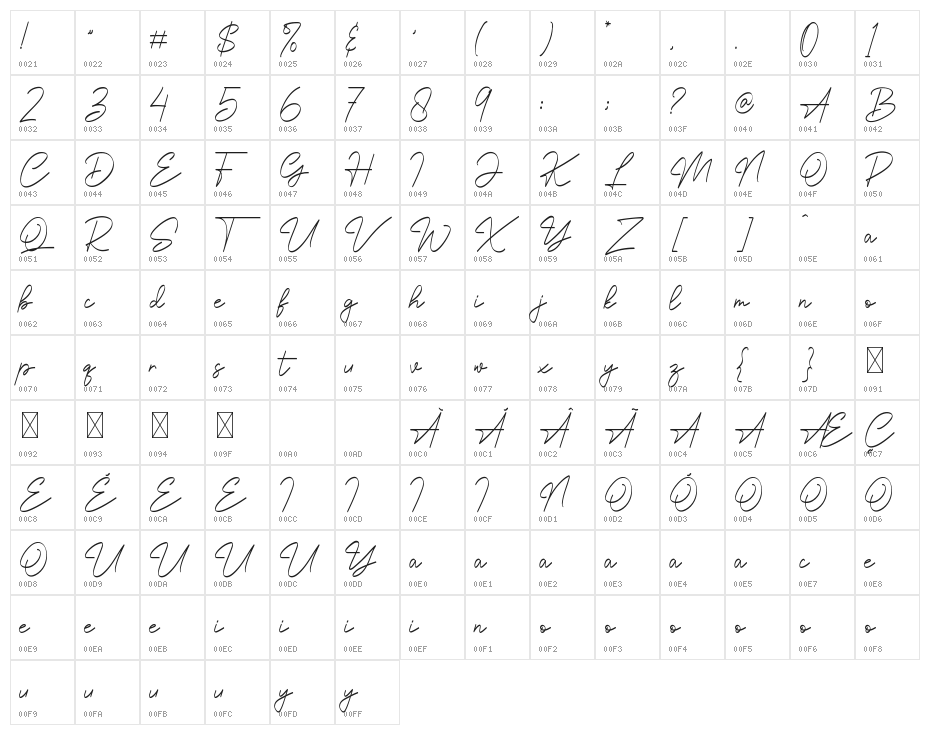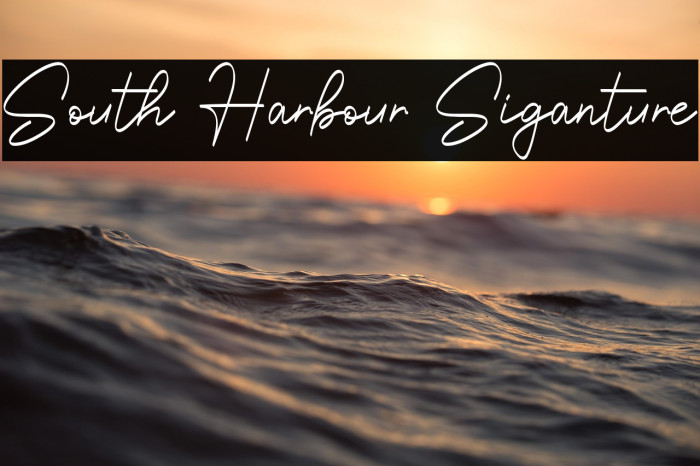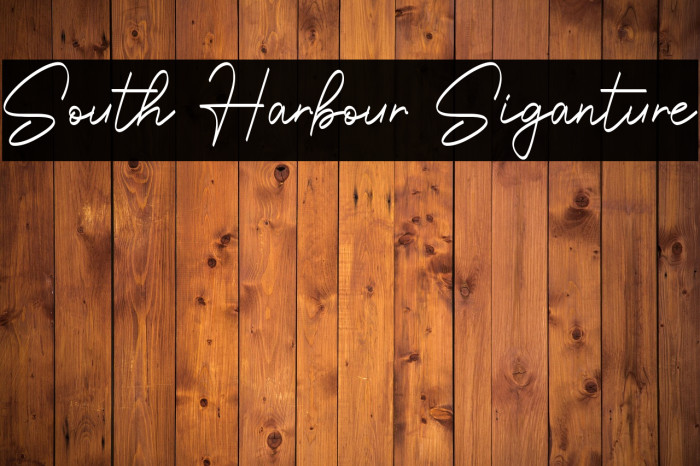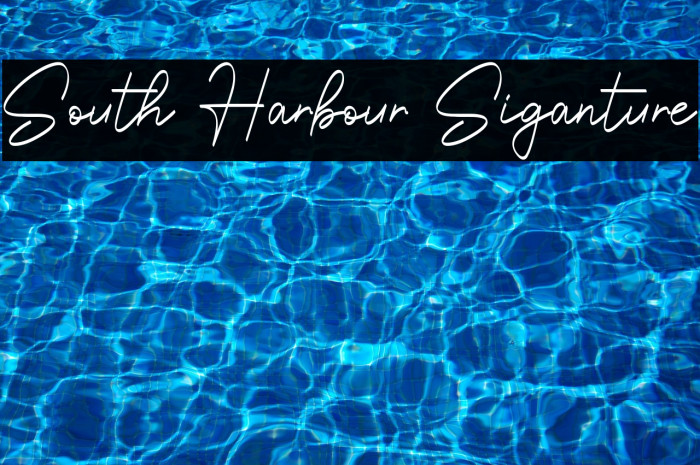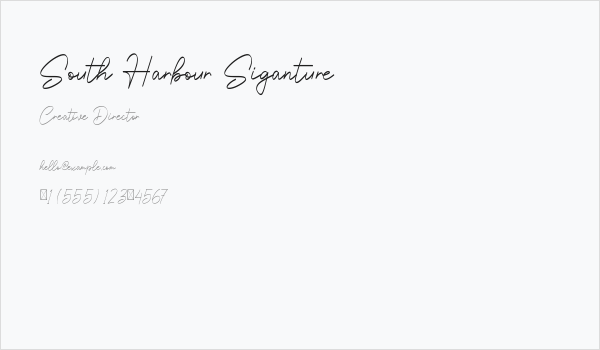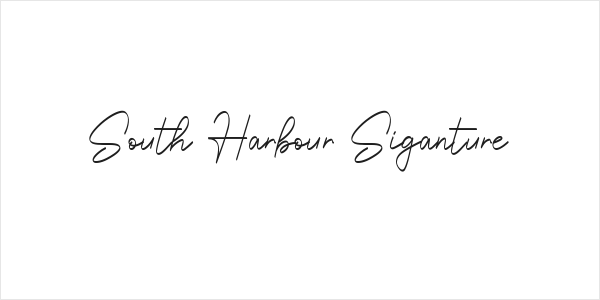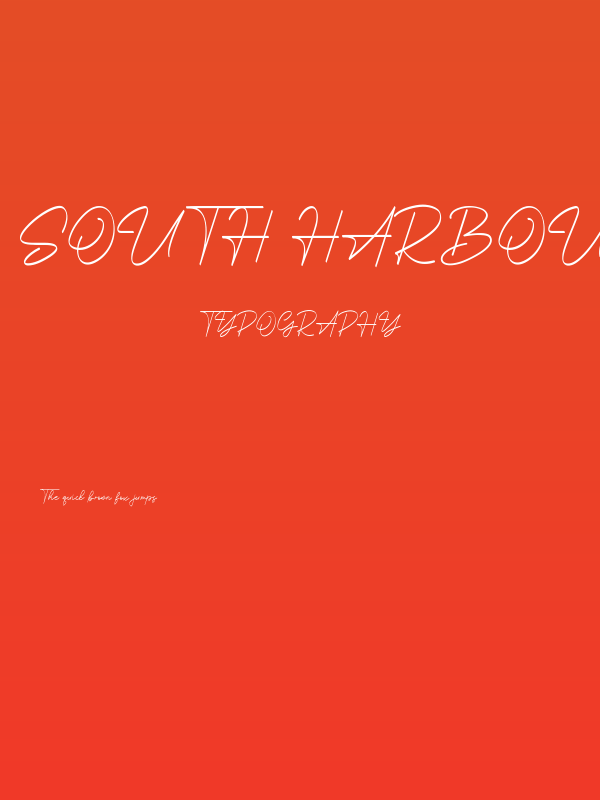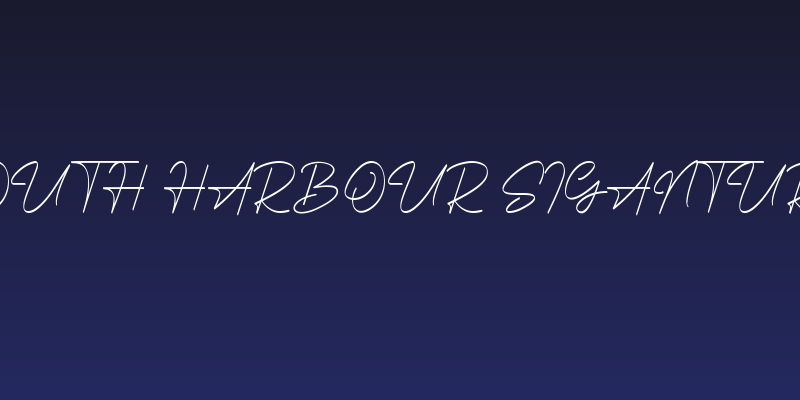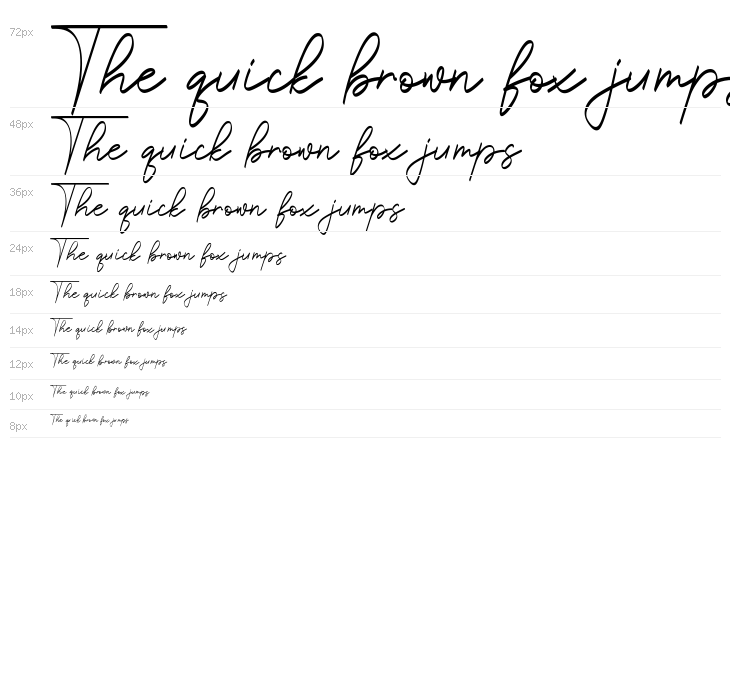
South Harbour Siganture Font
South Harbour Siganture Description
This font exudes a sophisticated and elegant handwritten style, characterized by its fluid and connected letterforms. The uppercase letters are tall and slightly slanted, giving a sense of movement and grace. The lowercase letters maintain a consistent flow, enhancing readability while preserving the artistic flair. Numbers and special characters are crafted with the same attention to detail, ensuring a cohesive look across all glyphs. The overall design is reminiscent of a personal signature, making it ideal for projects that require a personal touch or a sense of luxury.
| Proposed Projects | Ideal for wedding invitations, personal branding, luxury product packaging, and elegant stationery. |